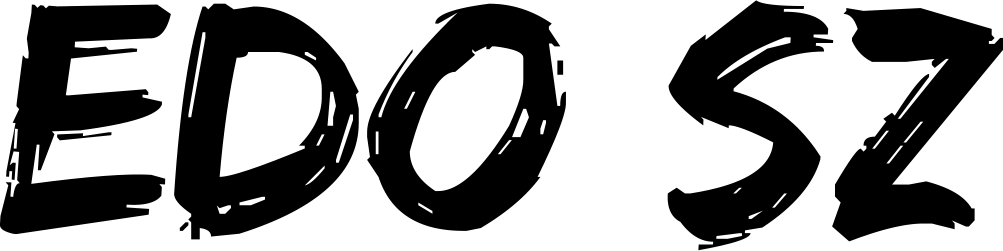
Edo SZ Font
Designed byVic Fieger
Edo SZ comes to your rescue at times when you are in need of some fresh, organic, and natural vibes to add to your projects! This incredible font comes from the brush font category and has bold characters that look like hand-drawn ones.
Edo SZ doesn’t cover lowercase yet it’s capable of doing a perfect job with your branding, greeting card design, product packaging, stationery, and so many more!